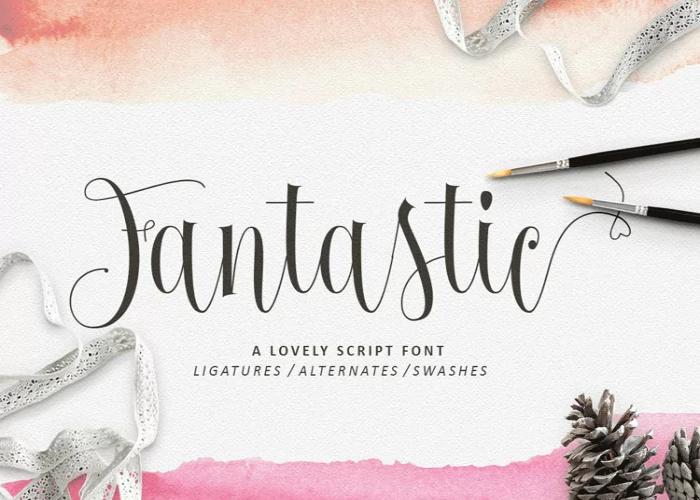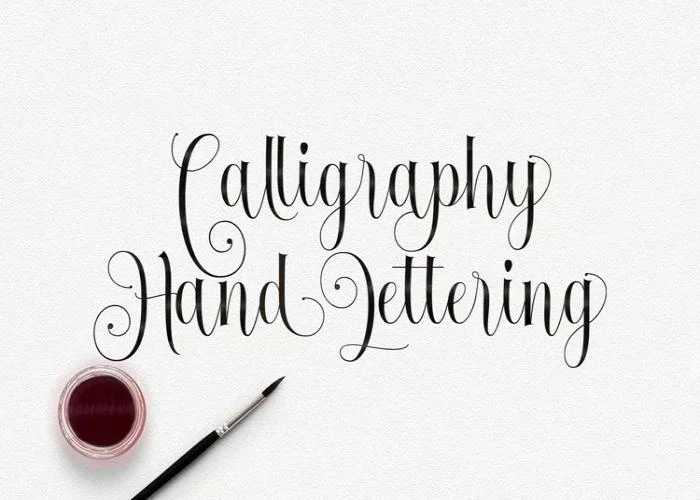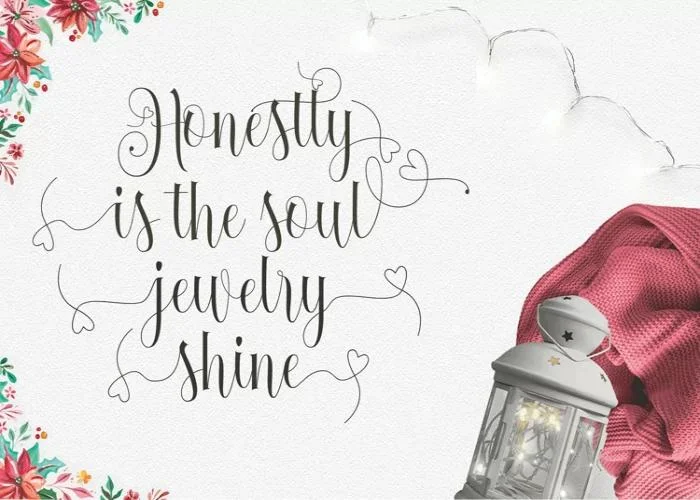
Fantastic Font Freebie!
This free font also includes 729 stylistic sets & 509 swash characters, which can be used for greeting cards, branding materials, business cards, quotes, posters, and more.
Preview of Fantastic Font: